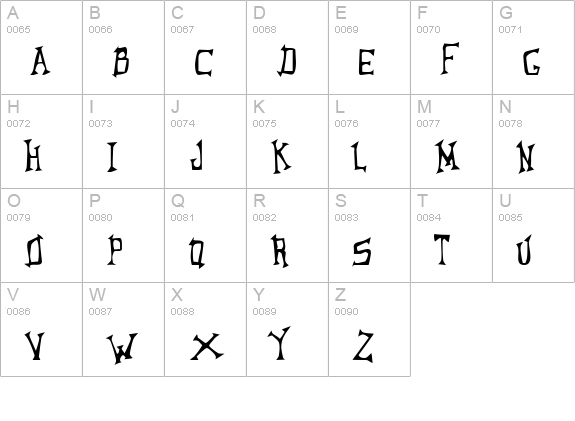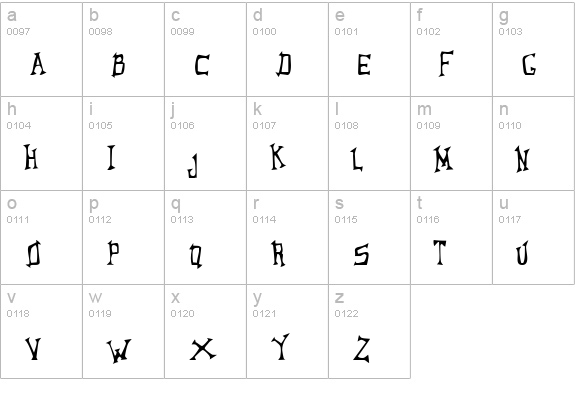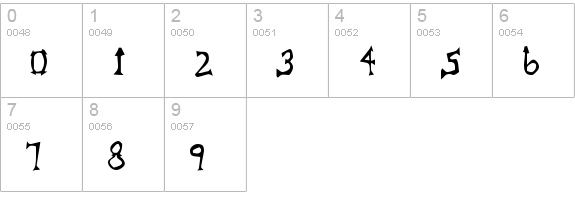
Lounger Oddtype Font Details
Lounger Oddtype font is a whimsical and playful typeface that adds a touch of uniqueness to any design project. With its quirky shapes and uneven strokes, this font exudes a sense of fun and creativity. Perfect for adding a charming and offbeat flair to posters, invitations, logos, and more. The best part? Lounger Oddtype font is completely free to download at FontsMarket.com! Simply visit the website and start incorporating this delightful font into your designs today. With its distinct character and free availability, Lounger Oddtype font is a must-have for anyone looking to infuse their projects with a touch of whimsy and personality.